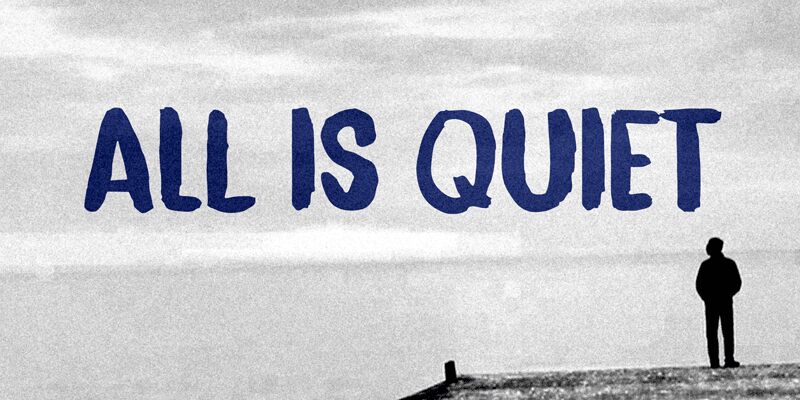
All Is Quiet, the bold brush font created by D K, is the perfect choice for designers looking to add a touch of creativity and uniqueness to their projects. This font typeface is suitable for a wide range of designs from logos, posters, invitations, to social media graphics and more. With its bold and striking strokes, All Is Quiet will make any text stand out on the page. Whether you're looking for a playful vibe or something more refined and elegant, this font's versatility makes it an ideal choice for any project that requires bold typography with a twist. So why wait? Download All Is Quiet today and let your creativity shine!